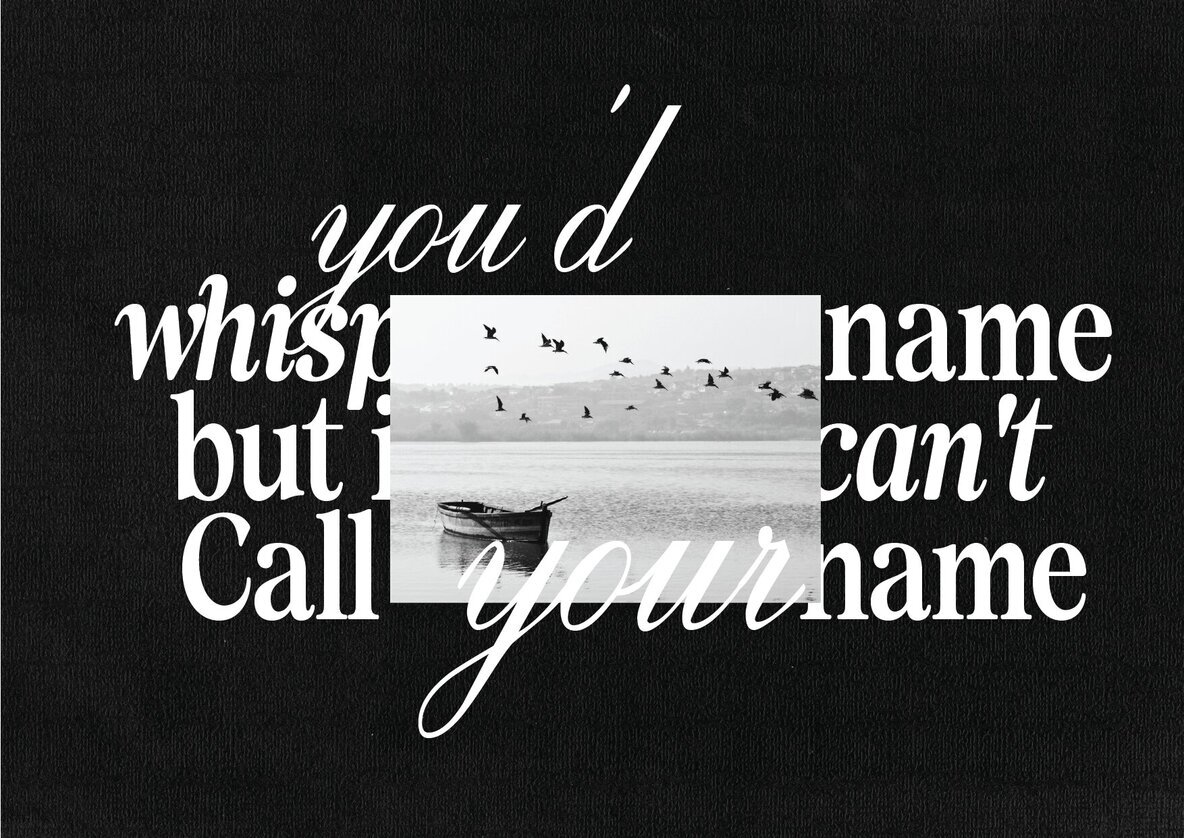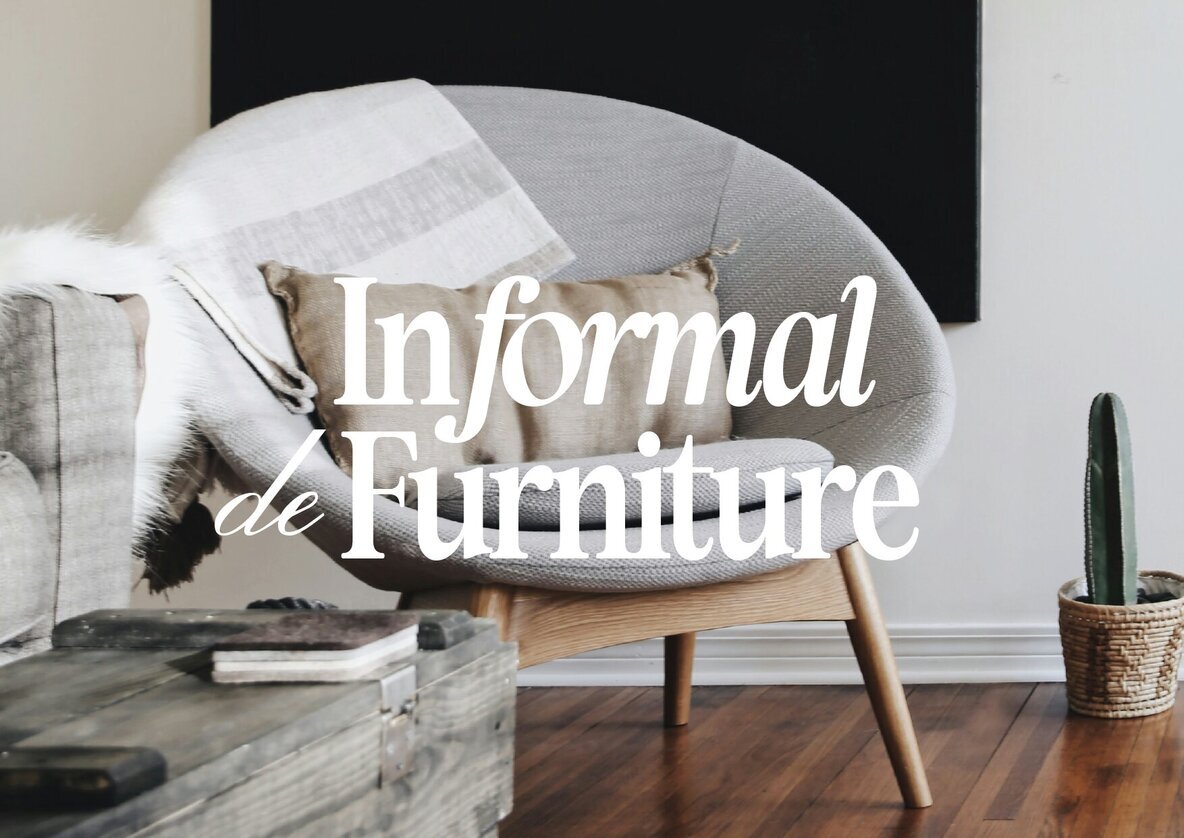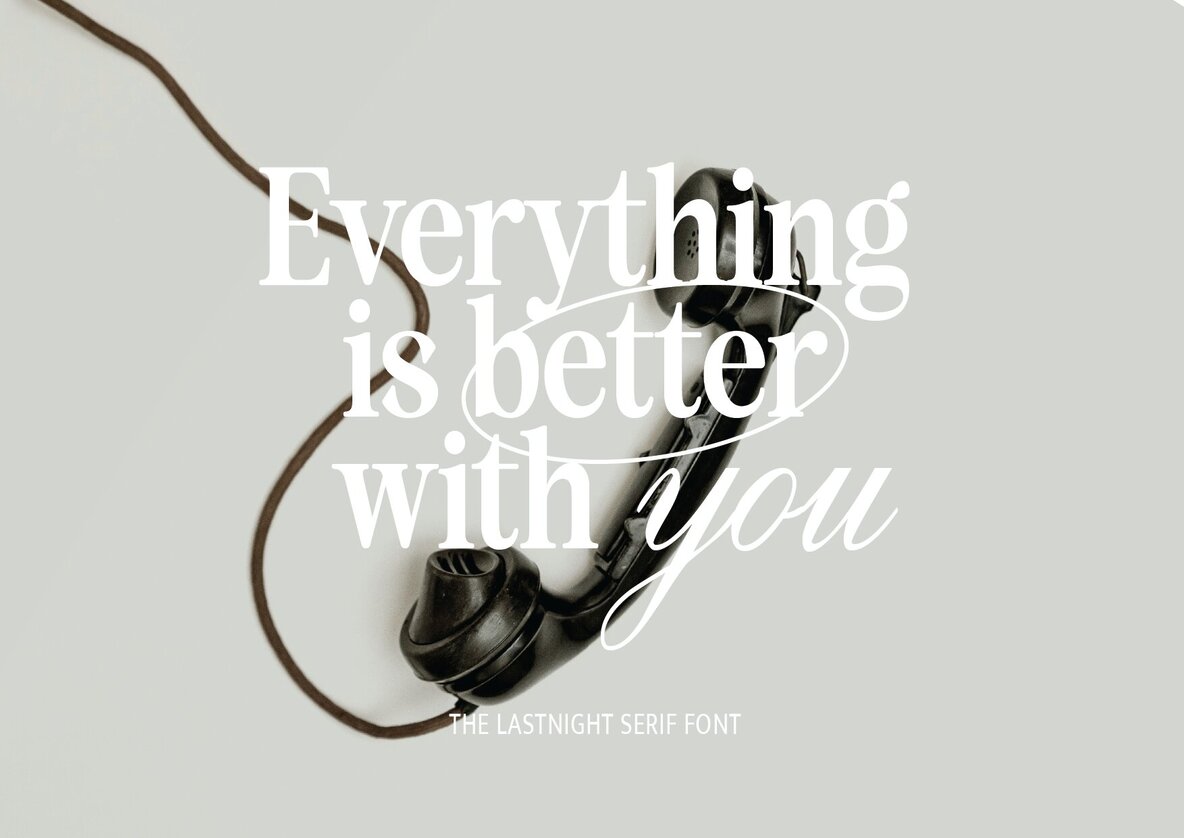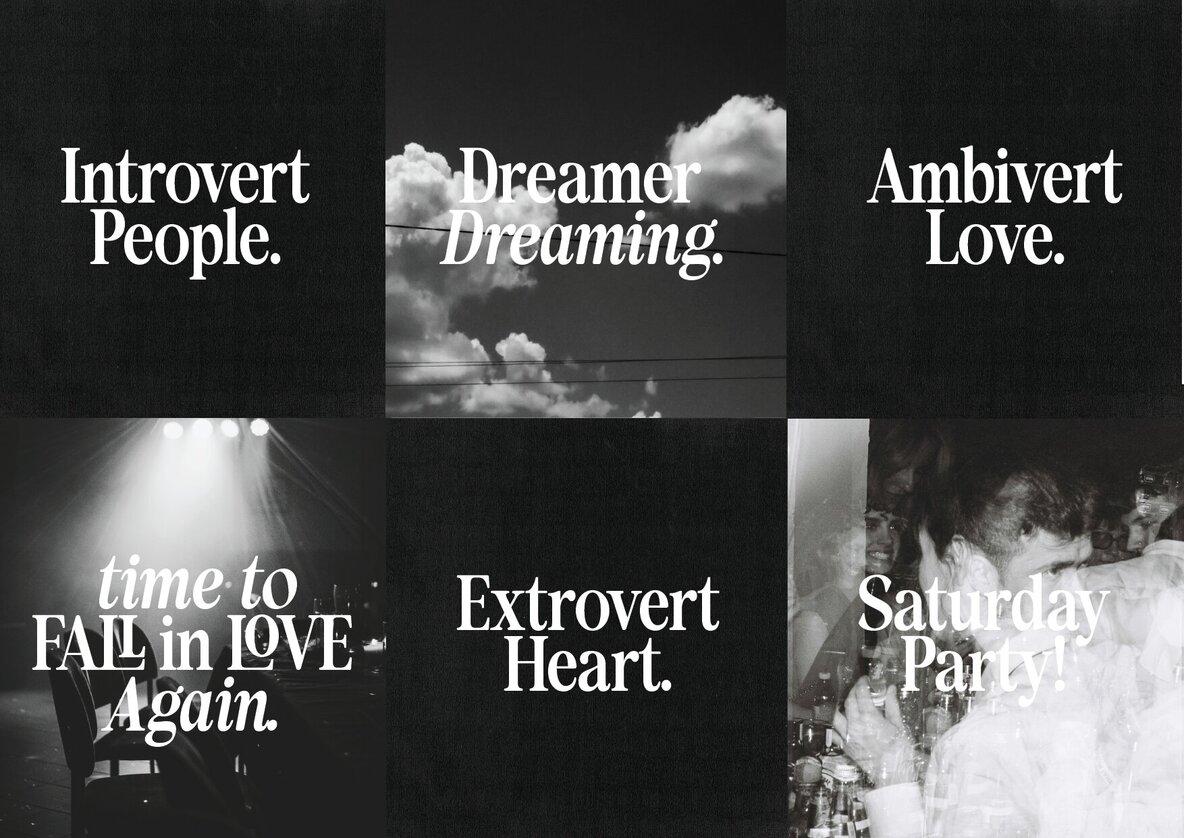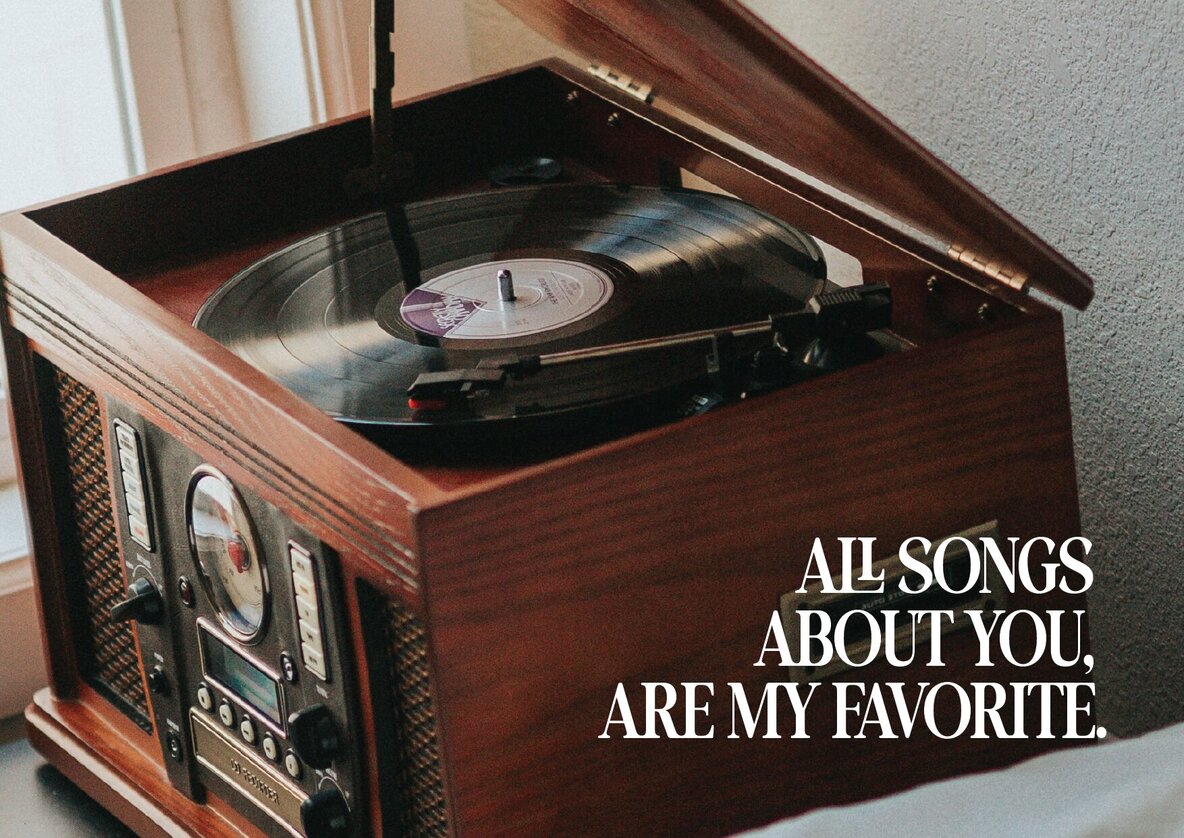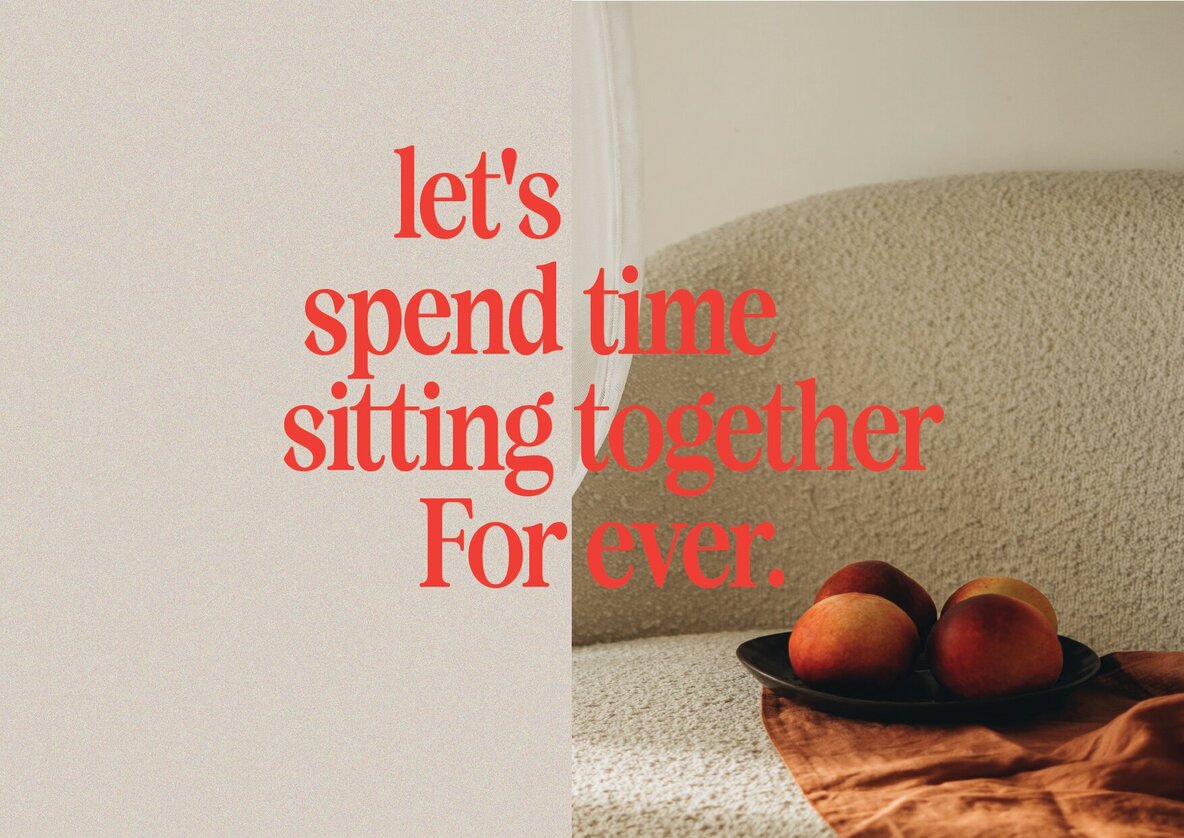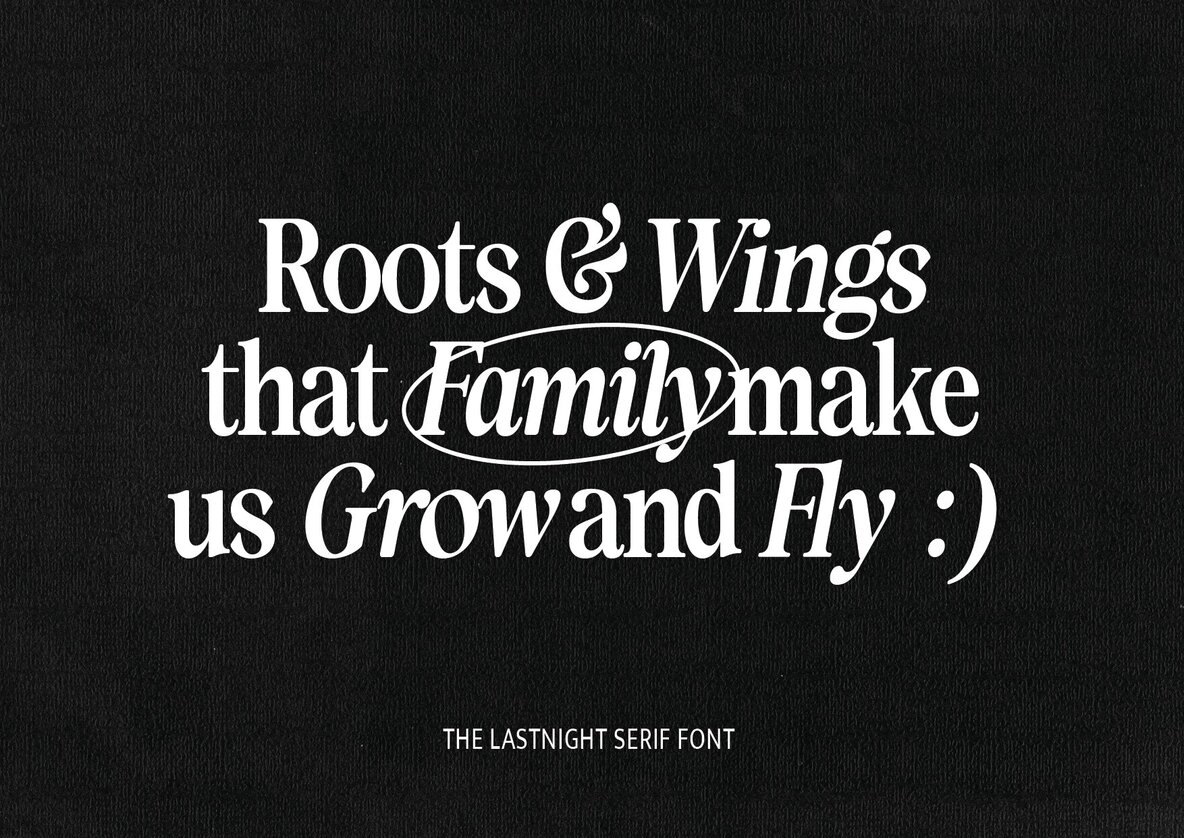
The Wishper Serif Font
The Wishper Serif is a timeless and elegant old-style serif font designed to bring sophistication to any project. With its Regular and Italic styles, it offers versatility for a range of applications, from branding and editorial designs to wedding invitations and book covers. Featuring beautifully crafted uppercase ligatures, *The Wishper* seamlessly combines vintage charm with modern refinement, making it perfect for creating a luxurious and polished look. Whether you’re emphasizing headlines, quotes, or body text, The Wishper Serif delivers a graceful aesthetic that elevates your creative work.